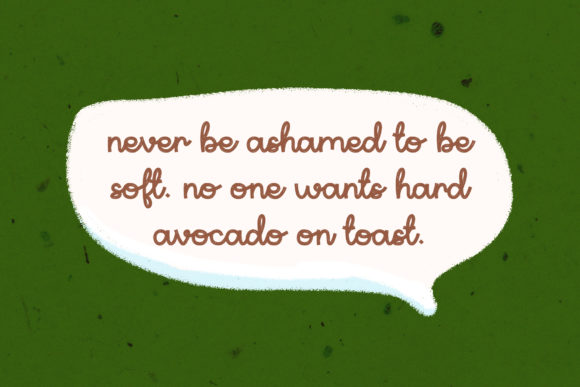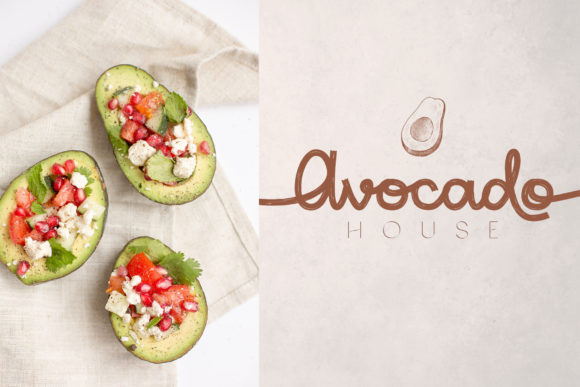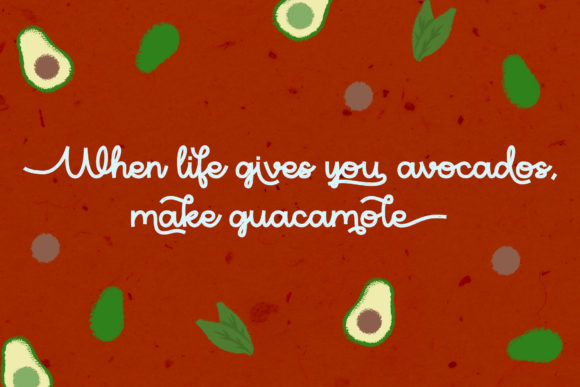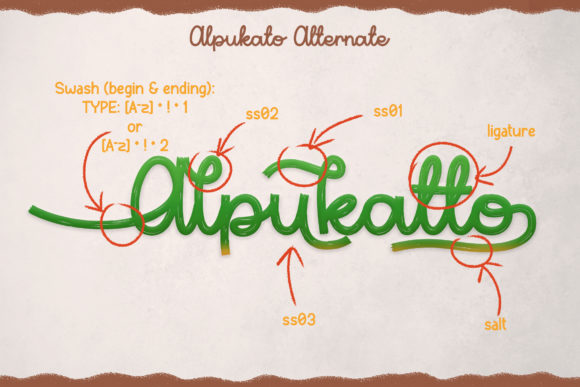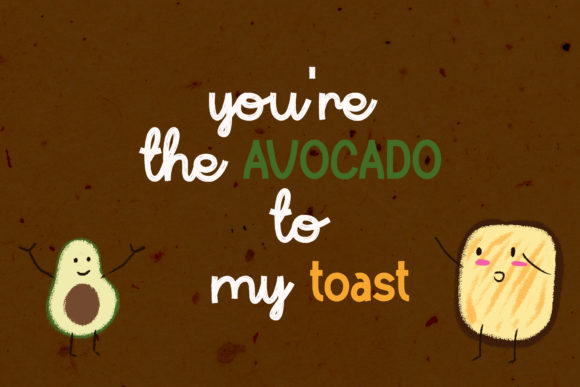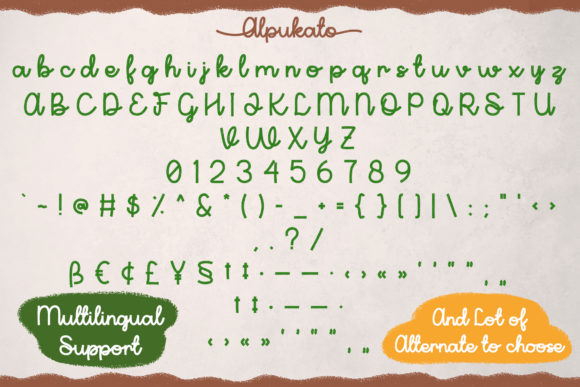
Introducing Alpukato Font: The Ultimate Choice for Unique and Outstanding Designs
Are you tired of using the same old fonts for your designs? Do you want to create something original and eye-catching? Look no further than Alpukato Font, a unique handwritten font that’s perfect for making a statement. In this article, we’ll explore the features and benefits of Alpukato Font, and why it’s a must-have for designers and crafters.
What is Alpukato Font?
Alpukato Font is a one-of-a-kind handwritten font that’s designed to help you create original and outstanding designs. With its unique and quirky style, Alpukato Font is perfect for adding a personal touch to your projects. Whether you’re working on a logo, brochure, or social media post, Alpukato Font is sure to make your design stand out from the crowd.
Features of Alpukato Font
So, what makes Alpukato Font so special? Here are just a few of its key features:
- Unique Handwritten Style: Alpukato Font has a distinctive handwritten style that’s both playful and elegant.
- High-Quality Design: The font is designed with high-quality and clear lines, making it perfect for use in a variety of design projects.
- Easy to Read: Despite its unique style, Alpukato Font is easy to read and understand, making it perfect for use in body text.
- Multilingual Support: Alpukato Font supports multiple languages, making it a great choice for designers working on international projects.
Benefits of Using Alpukato Font
So, why should you choose Alpukato Font for your next design project? Here are just a few benefits of using this amazing font:
- Stand Out from the Crowd: With Alpukato Font, you can create designs that are truly unique and eye-catching.
- Personal Touch: The handwritten style of Alpukato Font adds a personal touch to your designs, making them more relatable and engaging.
- Time-Saving: With Alpukato Font, you can create professional-looking designs in no time, saving you time and effort.
- Versatility: Alpukato Font can be used in a variety of design projects, from logos and brochures to social media posts and more.
Who Can Benefit from Alpukato Font?
Alpukato Font is perfect for a wide range of designers and crafters, including:
- Graphic Designers: If you’re a graphic designer looking for a unique font to add to your collection, Alpukato Font is a great choice.
- Digital Artists: If you’re a digital artist looking for a font to use in your artwork, Alpukato Font is a great option.
- Crafters: If you’re a crafter who loves to create handmade cards, gift tags, and other paper crafts, Alpukato Font is a great choice.
- Small Business Owners: If you’re a small business owner looking for a unique font to use in your branding, Alpukato Font is a great option.
How to Use Alpukato Font
| Font Name | Alpukato Font |
| Author | Katario Studio |